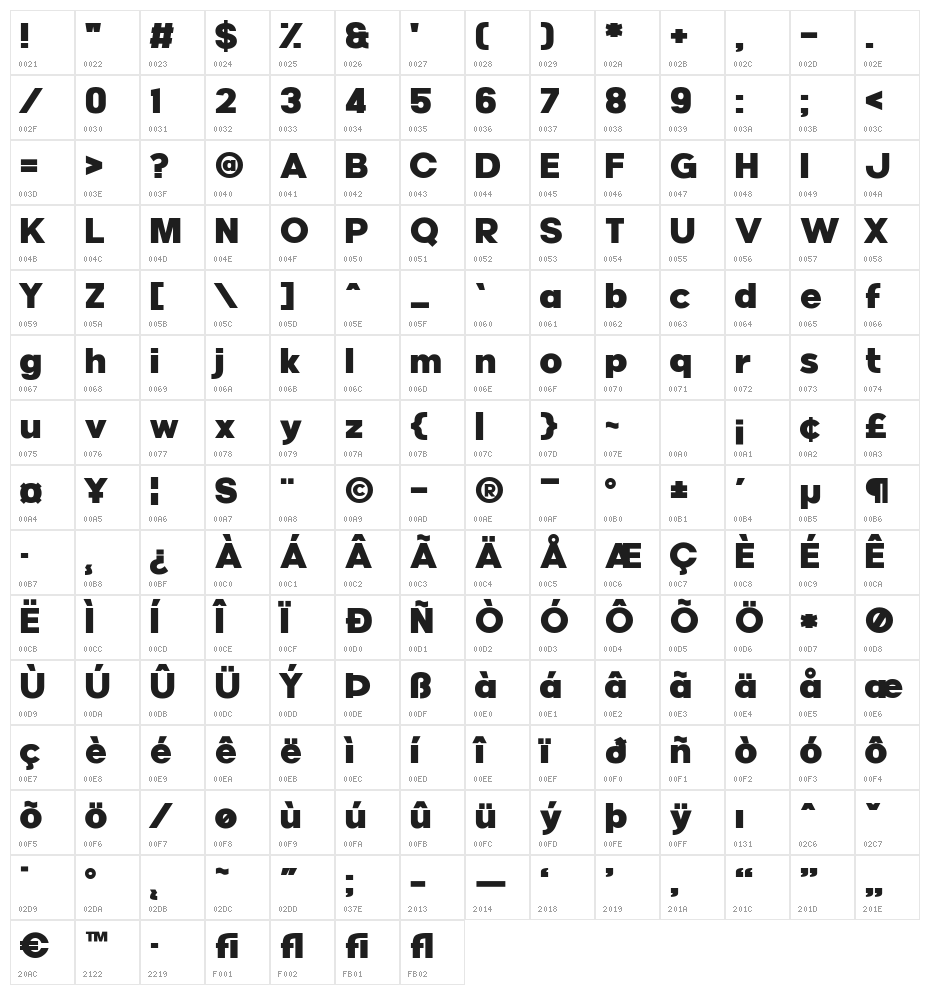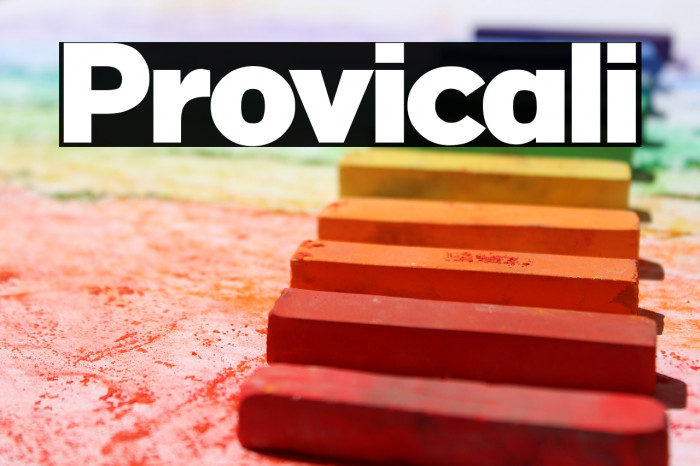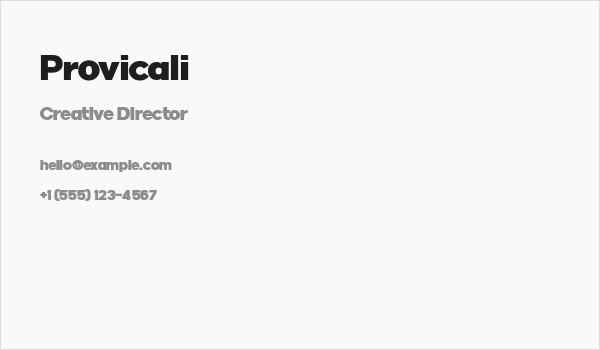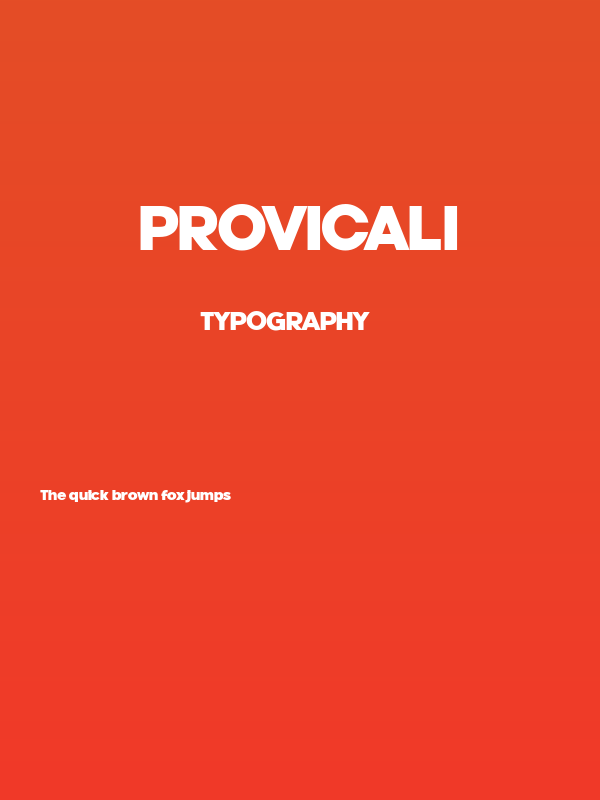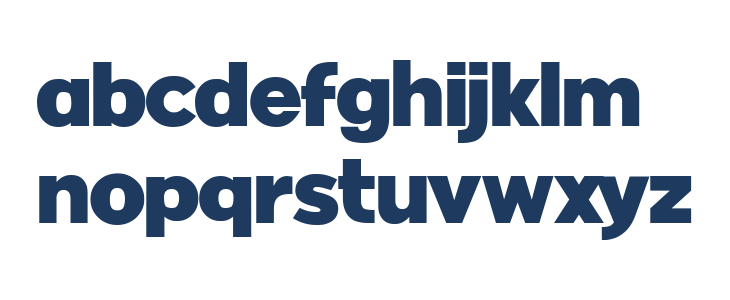
Provicali Font
Provicali Description
This font features bold, robust characters with a strong presence. The letters are uniformly thick, providing a sense of stability and confidence. The uppercase and lowercase letters maintain a consistent style, with rounded edges that soften the overall look. The numbers are equally bold, ensuring they stand out clearly. Special characters are designed with the same thickness, making them easily recognizable and harmonious with the rest of the font. This font's boldness and clarity make it ideal for impactful designs.
A bold, modern font with thick, rounded characters from Uncategorized fonts.
- Proposed Projects: Ideal for branding, headlines, posters, and any project requiring a strong visual impact.